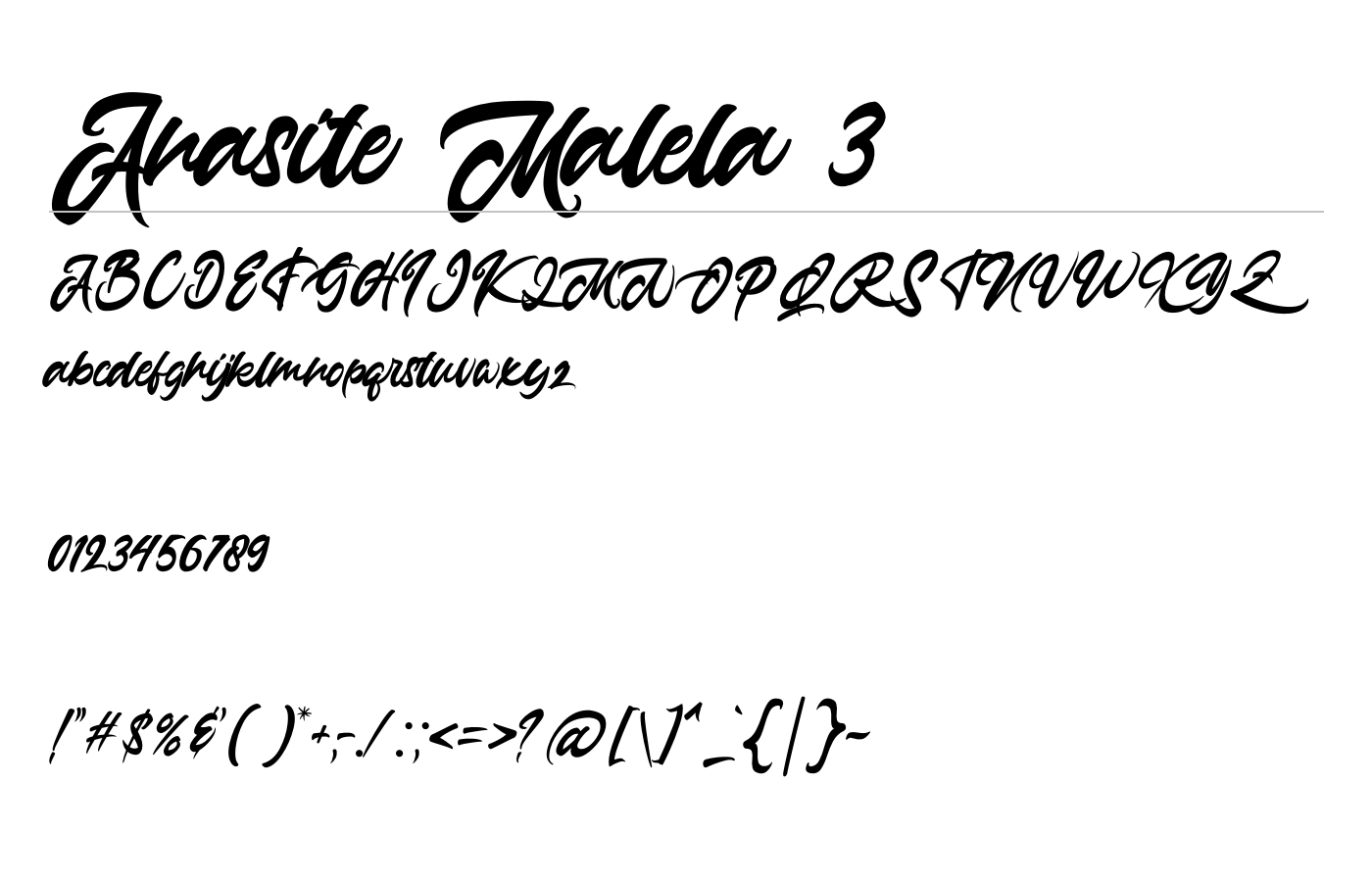
Anasite Malela 3 is a bold, lively script font with smooth, flowing strokes and a casual, handwritten feel. It features a strong contrast between thick and thin lines, elegant curves, and distinctive letterforms that make it ideal for creative branding, invitations, and expressive headlines. This font brings a personal, artistic touch that works beautifully in design projects seeking warmth and personality.
Anasite Malela 3 Font
About Anasite Malela 3 Font